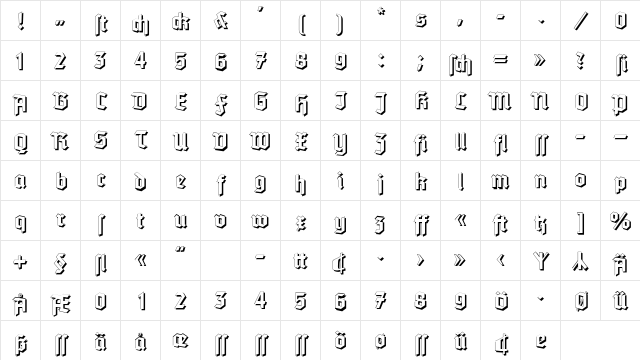
Tannenberg Schattiert Roman
Design Context for Tannenberg Schattiert
Tannenberg Schattiert is a composed and adaptable typeface that performs quietly and consistently across a wide range of design contexts.